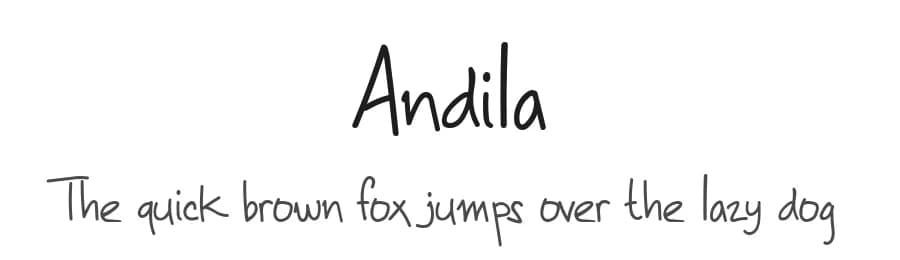
About Andila Font
Introducing Andila Handwriting Font
Andila Handwriting this font perfect for branding, invitation, stationery, wedding designs, social media posts,
product packaging, product designs, label, special events or anything.
Andila Font is a script font that shines as a display or heading face. Pair it with a clean sans-serif or serif font for body text β the contrast creates a clear hierarchy while the two styles stay balanced and easy to read.
Andila Font